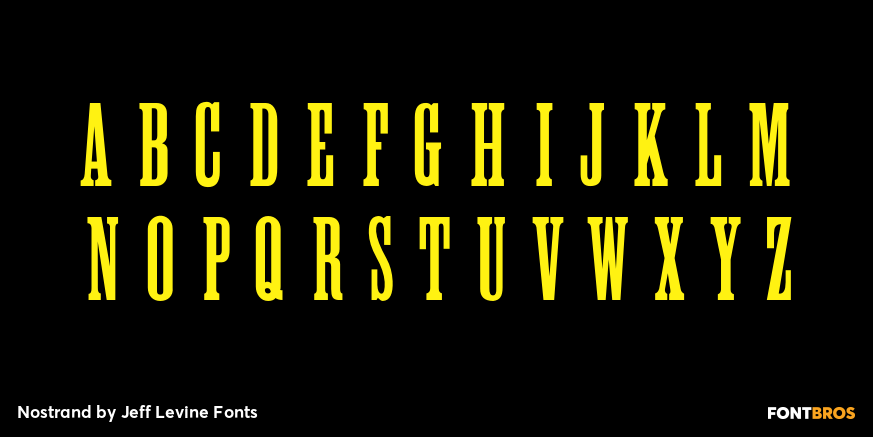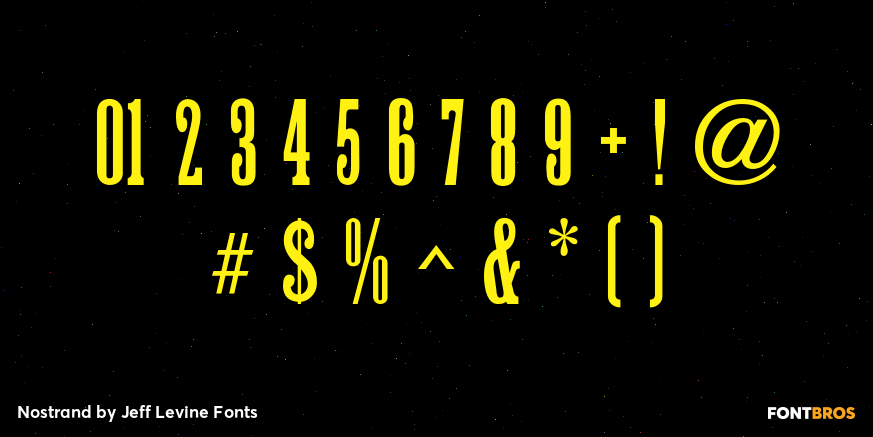
Nostrand
Based on vintage wood type, Nostrand JNL is a tall, condensed serif face - named for an avenue in font designer Jeff Levine's home town of Brooklyn, New York.